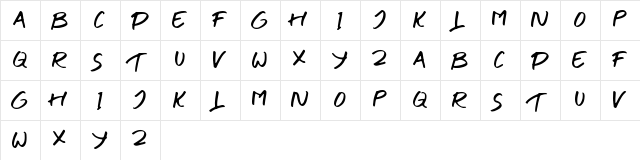
THE CROWN Regular
Design Context for THE CROWN Typeface
THE CROWN is a composed and adaptable typeface that performs quietly and consistently across a wide range of design contexts.